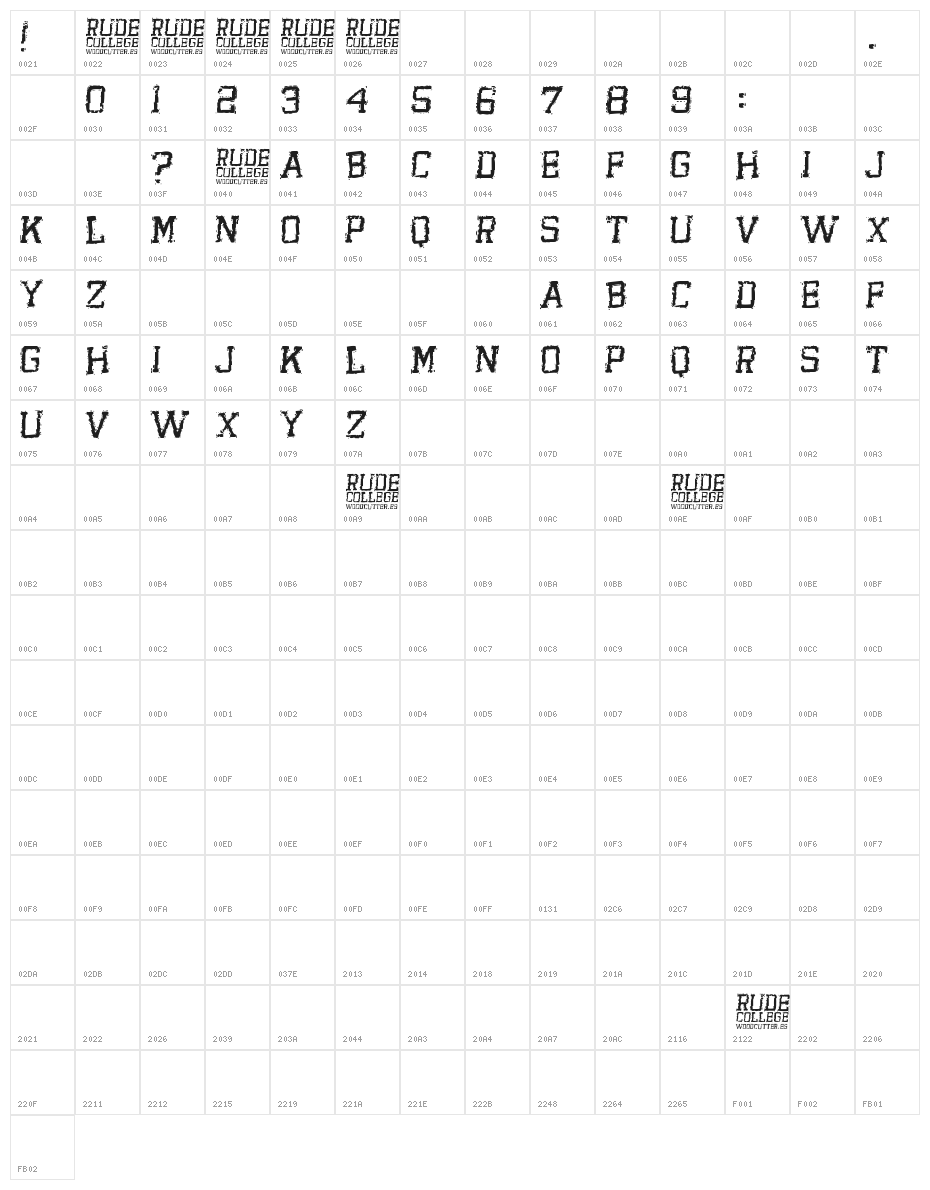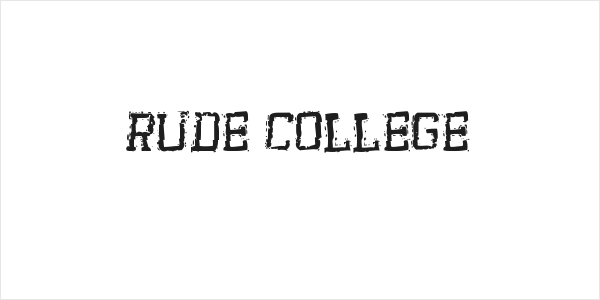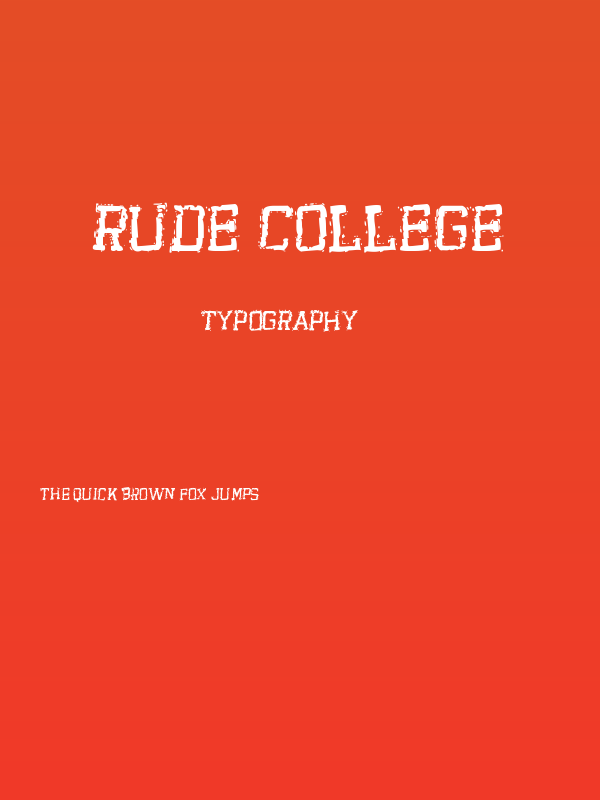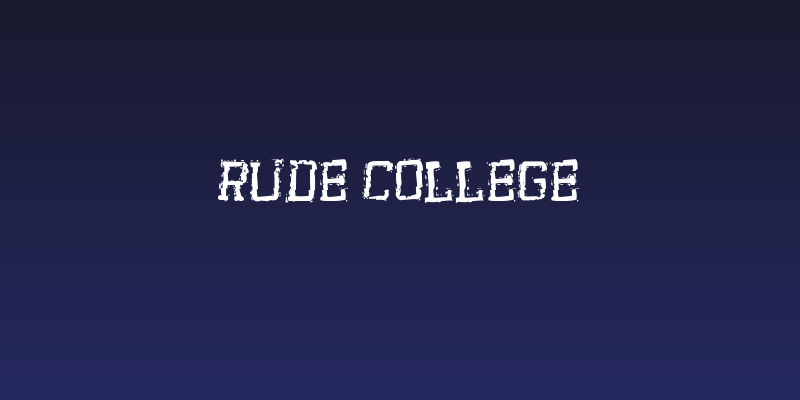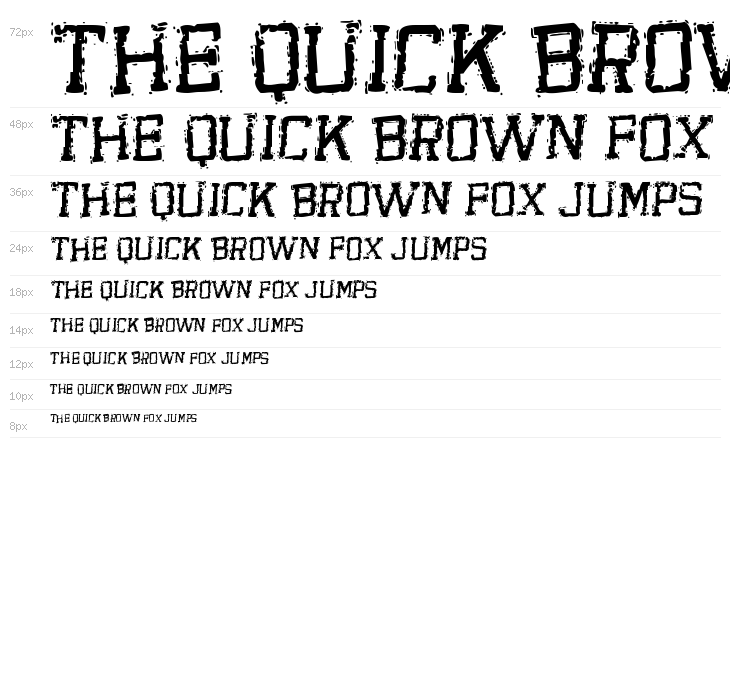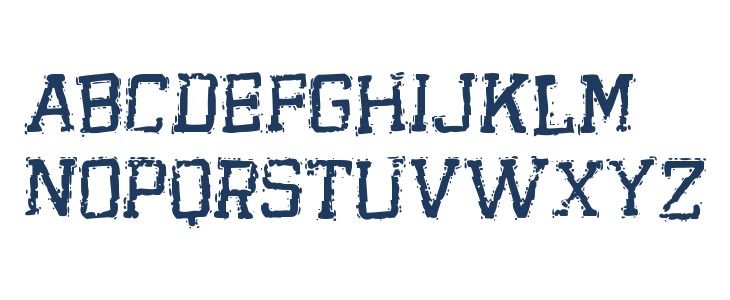
Rude College Font
Rude College Description
This font features a rugged, distressed style with a bold and impactful presence. The characters are designed with rough edges and a textured appearance, giving them a worn and weathered look. This style evokes a sense of rebellion and edginess, making it ideal for projects that require a strong, eye-catching typeface. The uppercase letters are prominent and commanding, while the numbers and special characters maintain the same distressed aesthetic. The font's unique character is perfect for creating a bold statement in any design.
RUDE-COLLEGE UPPERCASE
RUDE-COLLEGE LOWERCASE
RUDE-COLLEGE OTHER CHARS
| Proposed Projects | Ideal for posters, album covers, branding for edgy or alternative products, and any design needing a bold, rebellious touch. |